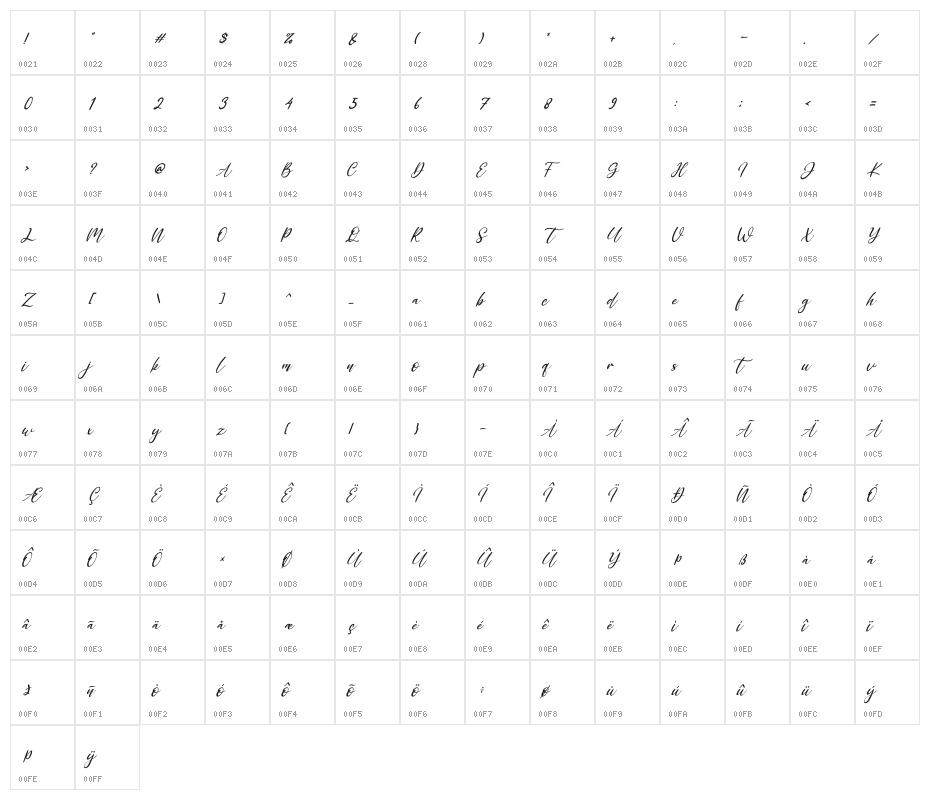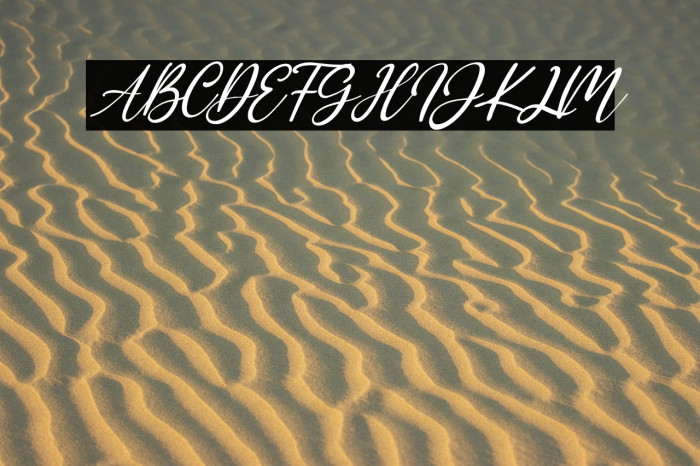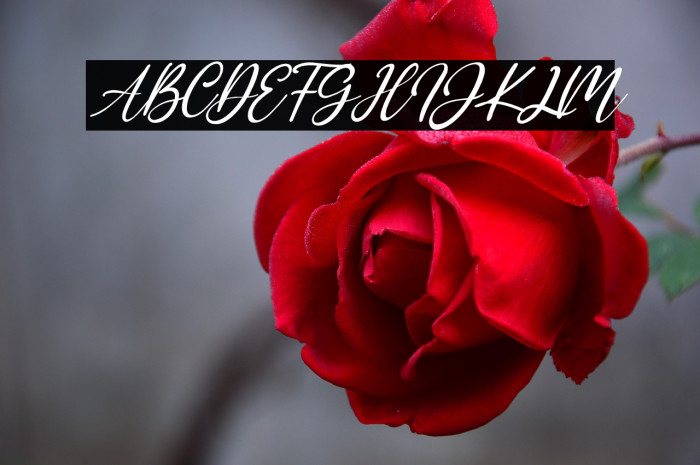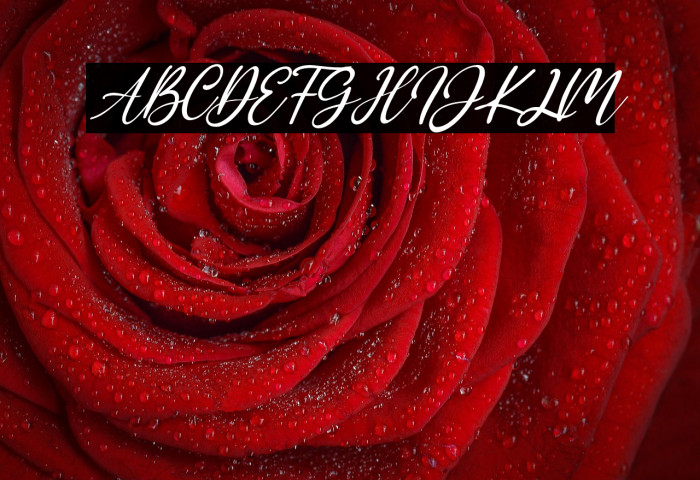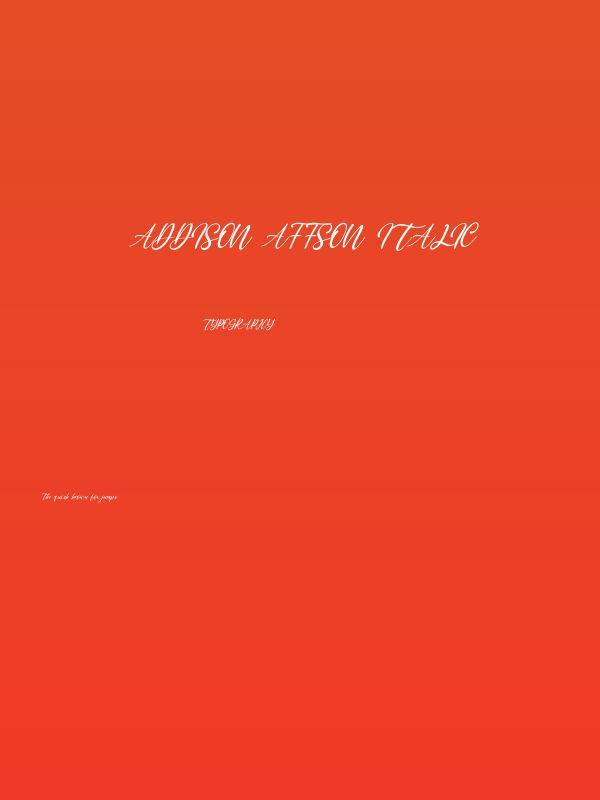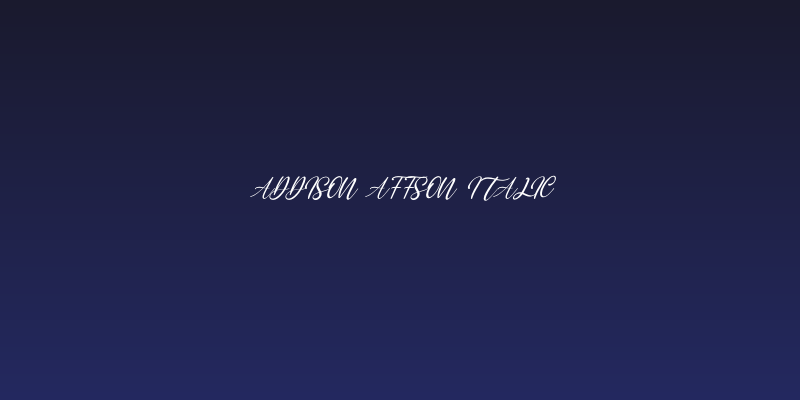
Addison Affson Italic Font
Addison Affson Italic Description
This font exudes elegance and sophistication with its flowing, cursive style. The letters are intricately designed, featuring smooth curves and delicate strokes that create a sense of fluidity and grace. Each character is distinct yet harmoniously blends with the others, making it ideal for conveying a sense of refinement and class. The uppercase letters are particularly striking, with their elongated forms and stylish flourishes. The lowercase letters maintain a consistent rhythm, enhancing readability while retaining the font's artistic flair. The numerals and special characters are crafted with the same attention to detail, ensuring a cohesive look across all text elements.
| Proposed Projects | Ideal for wedding invitations, luxury branding, elegant logos, and high-end product packaging. |